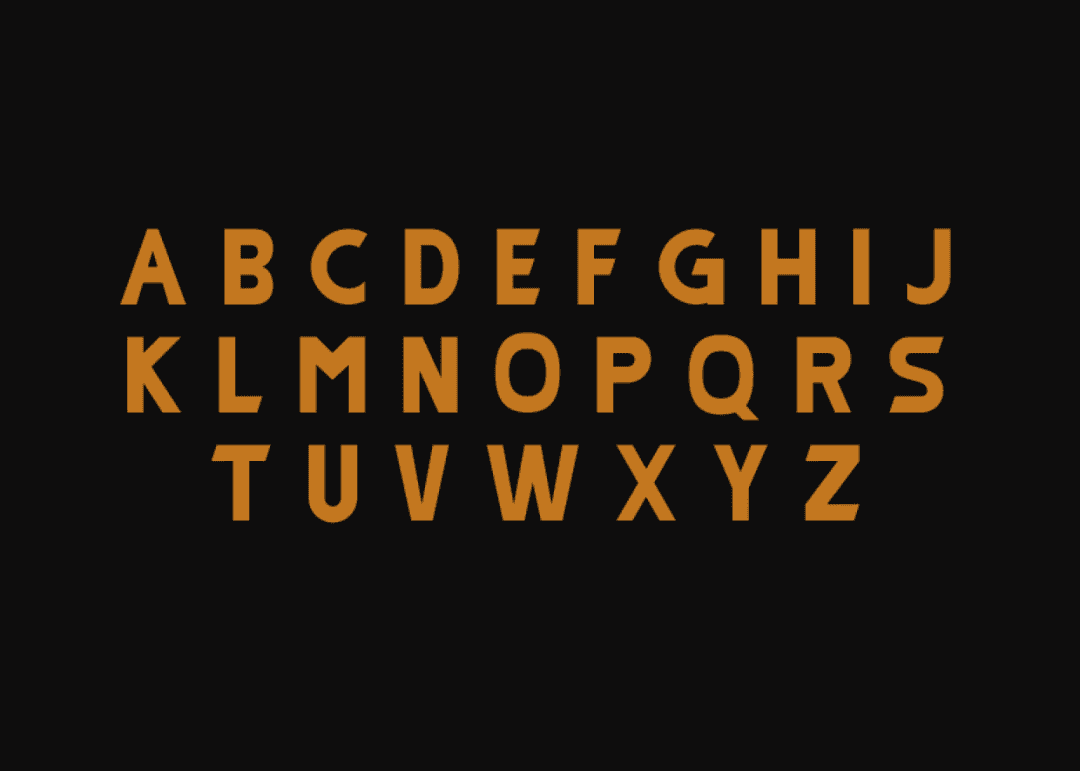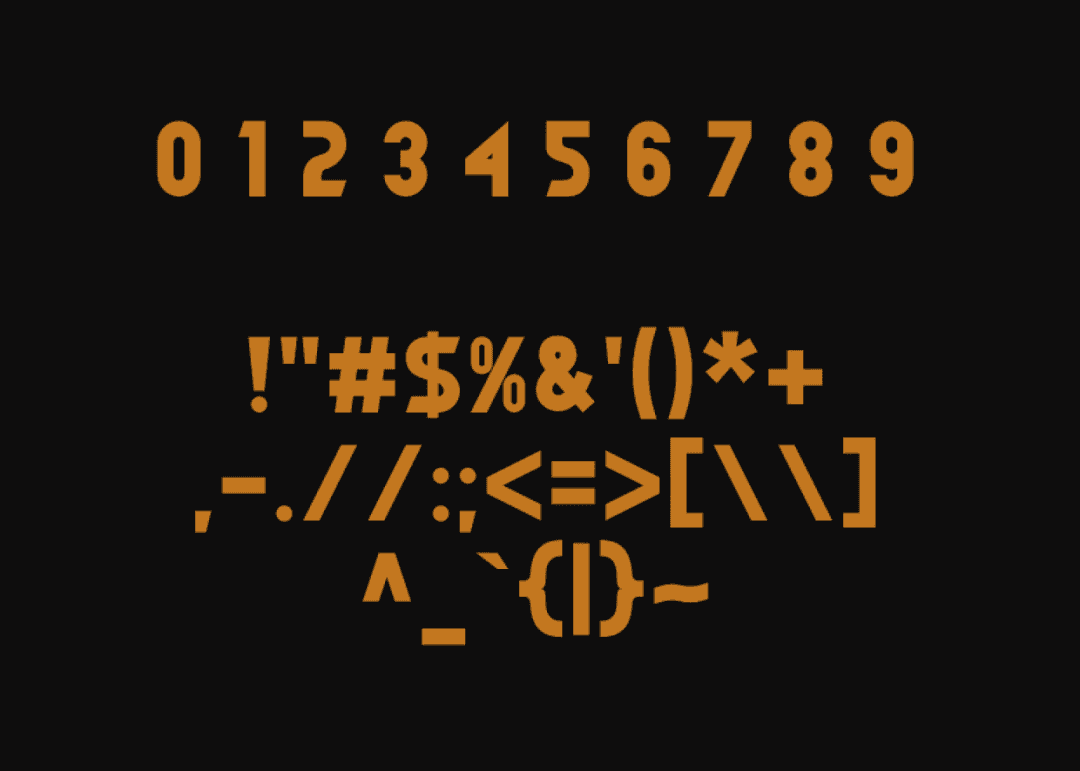
Monorealis is a sophisticated and clean cut sans serif font. Fresh and stylish, this font is the perfect addition to almost any project; introducing this font to your design will definitely make it pop!